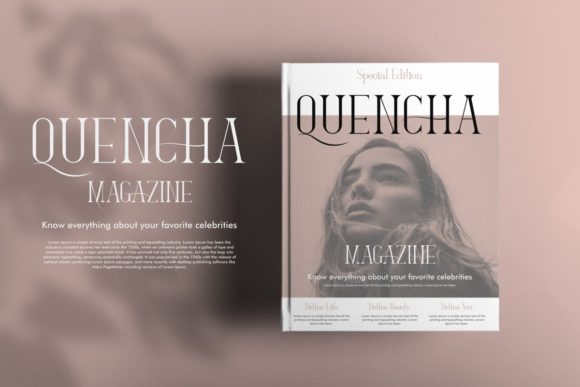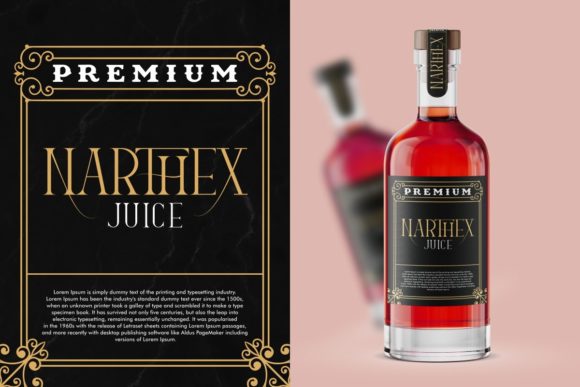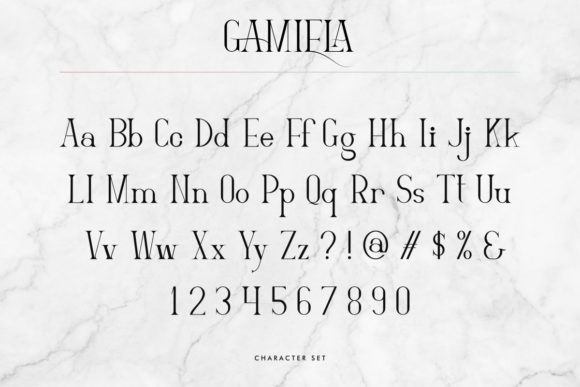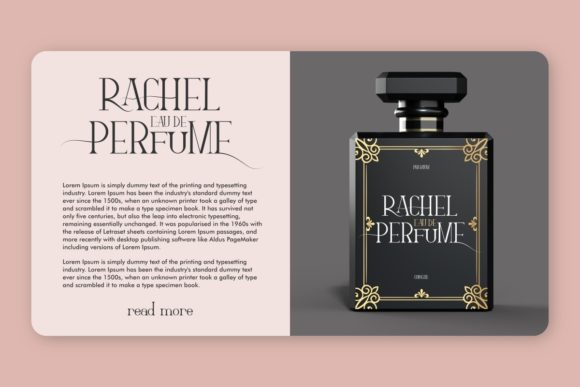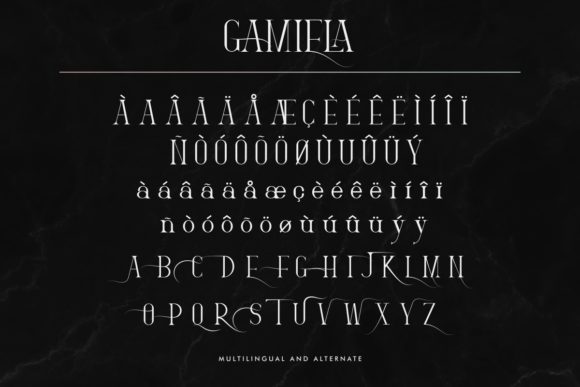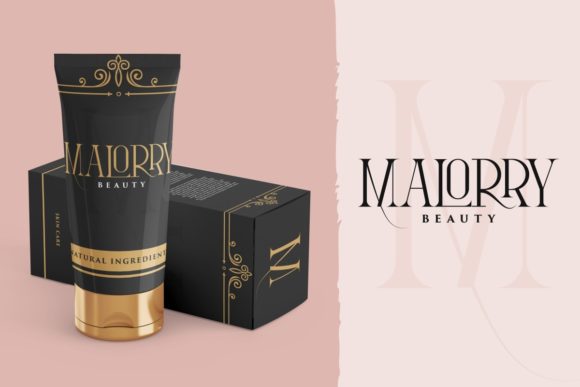
Gamiela Font: Elevate Your Designs with Luxury and Sophistication
In the world of typography, fonts play a crucial role in conveying the tone and personality of a design project. For designers and crafters seeking to add a touch of luxury and sophistication to their work, Gamiela Font is an exceptional choice. This stunning serif font is designed to make a statement, boasting a unique blend of elegance and assertiveness that is sure to elevate any design project.
The Features of Gamiela Font
Gamiela Font is not just any ordinary font. It is a luxurious and assertive serif font that is PUA (Private Use Area) encoded, allowing easy access to all glyphs and swashes. This feature makes it incredibly versatile and user-friendly, enabling designers to experiment with various typographic styles and creative expressions. With Gamiela Font, you can add a luxury spark to any design project, whether it’s a branding campaign, packaging design, or digital artwork.
What Makes Gamiela Font Stand Out
So, what sets Gamiela Font apart from other fonts in the market? Here are a few key characteristics that make it a standout choice for designers and crafters:
- Luxurious and Assertive Design: Gamiela Font exudes luxury and sophistication, making it perfect for high-end branding and design projects.
- PUA Encoding: With PUA encoding, accessing glyphs and swashes is a breeze, giving designers the flexibility to experiment with different typographic styles.
- Serif Font: The serif design of Gamiela Font adds a touch of elegance and refinement, making it suitable for a wide range of design applications.
- Ease of Use: Gamiela Font is designed to be user-friendly, allowing designers to focus on their creative work without any technical hassles.
Uses of Gamiela Font
Gamiela Font is an incredibly versatile font that can be used in a variety of design projects, including:
- Branding and Logo Design: Create stunning logos and brand identities with Gamiela Font’s luxurious and assertive design.
- Packaging Design: Add a touch of elegance and sophistication to your packaging designs with Gamiela Font.
- Digital Artwork: Use Gamiela Font to create stunning digital artwork, such as posters, flyers, and social media graphics.
- Stationery and Print Design: Elevate your stationery and print designs with Gamiela Font’s refined and luxurious design.
Tips for Using Gamiela Font
To get the most out of Gamiela Font, here are a few tips to keep in mind:
- Experiment with Different Sizes: Gamiela Font looks stunning in various sizes, so don’t be afraid to experiment and find the perfect size for your design.
- Play with Swashes and Glyphs: Take advantage of Gamiela Font’s PUA encoding and experiment with different swashes and glyphs to add a unique touch to your design.
- Pair with Other Fonts: Try pairing Gamiela Font with other fonts to create a unique and visually appealing typographic combination.
In conclusion, Gamiela Font is a luxurious and assertive serif font that is sure to elevate any design project. With its PUA encoding, ease of use, and stunning design, it’s an excellent choice for designers and crafters seeking to add a touch of luxury and sophistication to their work. Whether you’re working on a branding campaign, packaging design, or digital artwork, Gamiela Font is an exceptional choice that is sure to impress.